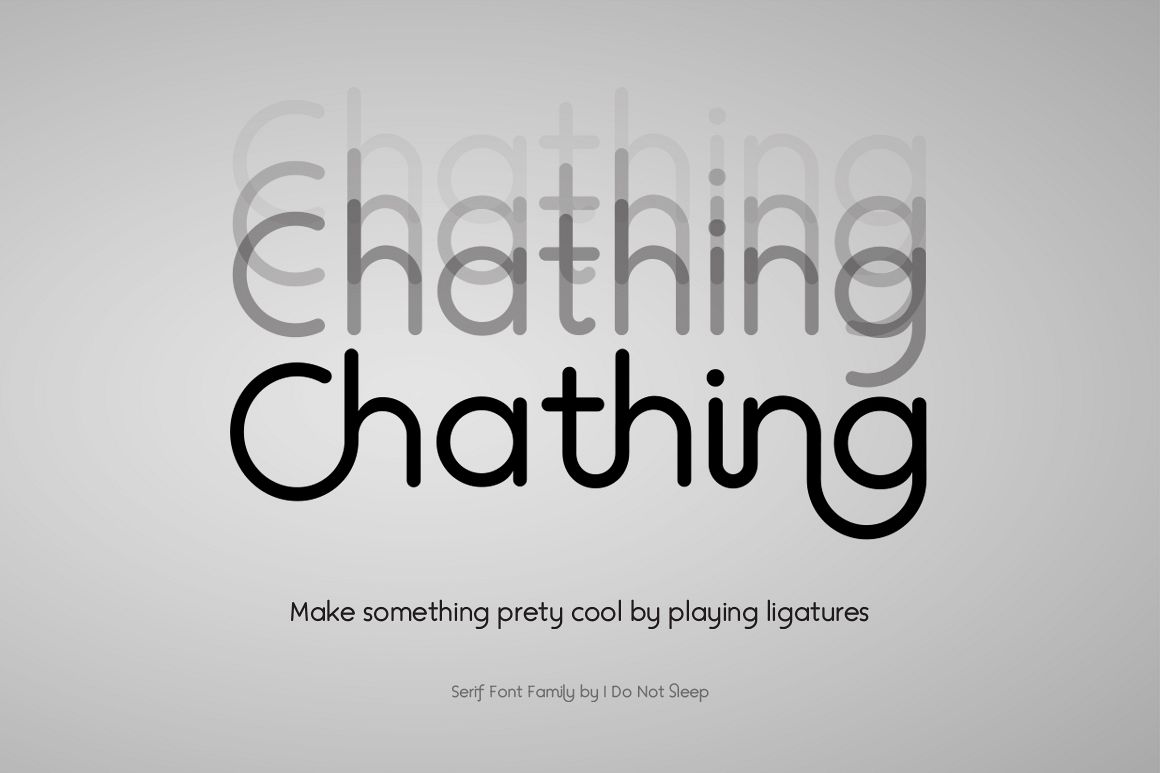
Chathing
Chathing font is geometric serif with strong features, clean line structure and contains more than 400 glyphs. the idea for using as text a title font, wedding design, quotes and more. The ligatures are available by turning on the OPEN-TYPE panel discretionary ligatures feature.